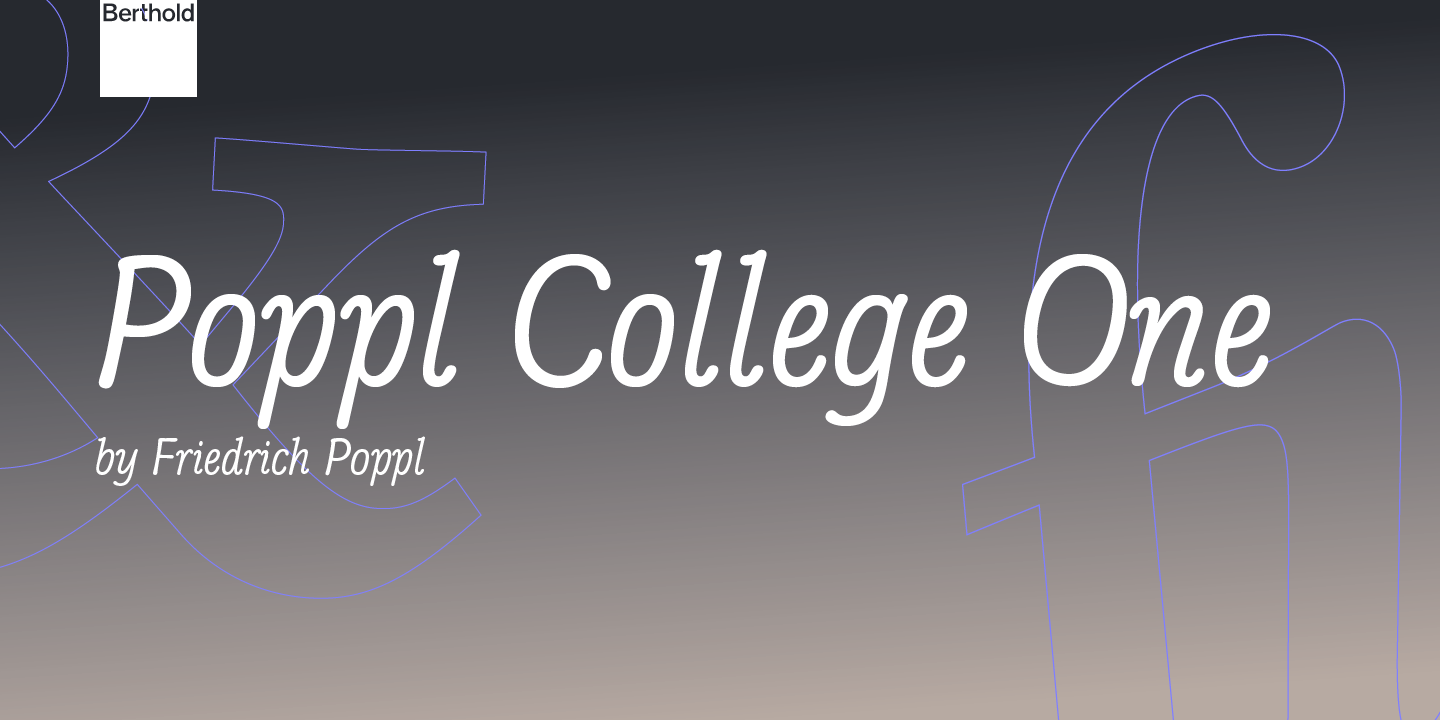
Poppl College Font is perfect for university branding, academic publications, scholarly documentation, educational institution materials, college yearbooks, graduation ceremonies, academic conferences, scholarly research presentations, institutional communications, and traditional educational design projects. This distinguished typeface creates authentic academic atmosphere in both scholarly print and digital educational applications.
What makes Poppl College Font exciting is its masterful embodiment of academic tradition with scholarly elegance and institutional authority. The font features classical letterforms with collegiate proportions and academic character details that evoke ivy-covered halls, scholarly pursuits, and educational excellence. Its distinguished design establishes an atmosphere of intellectual rigor and academic prestige that resonates with educational communities and scholarly audiences seeking authentic institutional credibility.
Poppl College Font family includes academic variations: Light, Regular, Medium, Bold, and Scholarly versions, each with collegiate alternates and academic character sets. Each variant maintains the font's educational integrity while providing designers with scholarly options for creating academic typography systems and institutional communication materials.
This exceptional academic typeface brings authentic educational credibility to projects requiring scholarly presentation. Whether you're designing university branding, academic publications, or educational marketing materials, Poppl College Font Free Download delivers outstanding scholarly sophistication and institutional authority. The font's collegiate proportions and academic details ensure memorable educational connection across various institutional applications.
Universities and educational institutions recognize how Poppl College Font perfectly captures the essence of academic tradition and scholarly excellence. Its collegiate foundation combined with institutional dignity makes it essential for educational and academic design projects. Download today and educate your designs with this exceptionally distinguished academic typography.